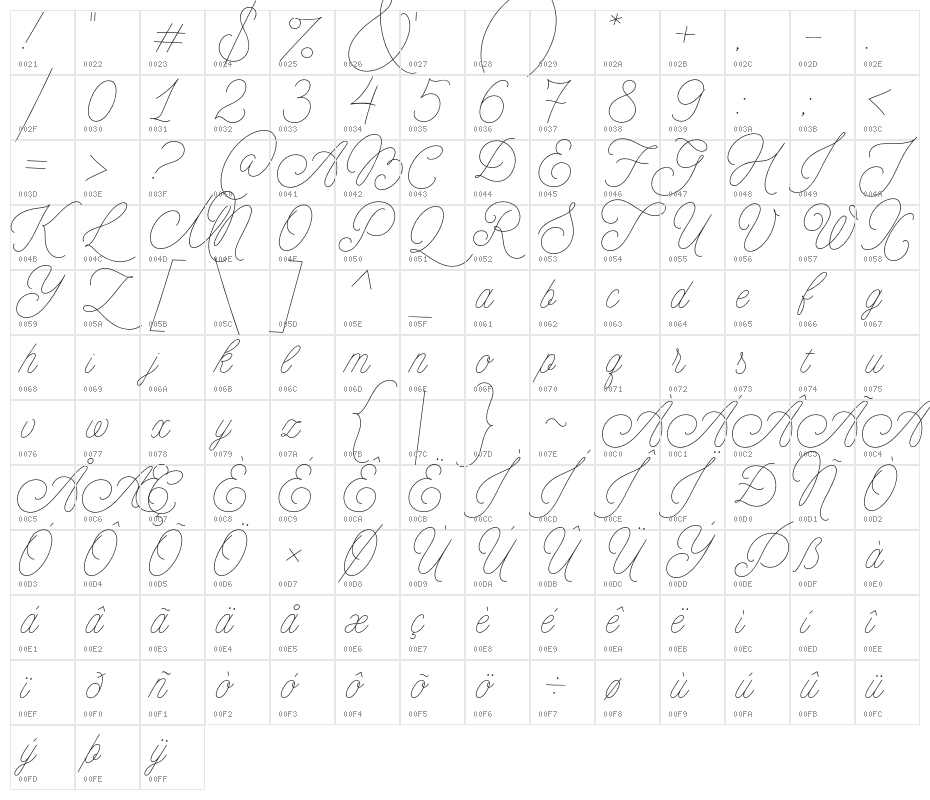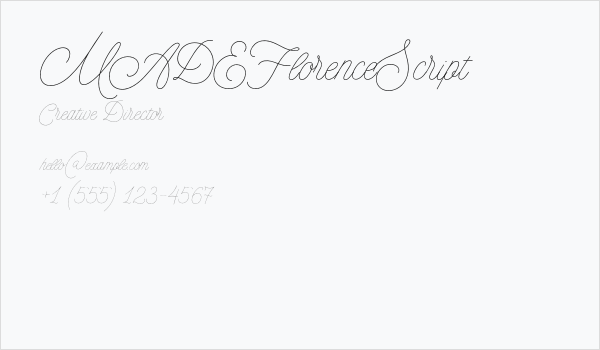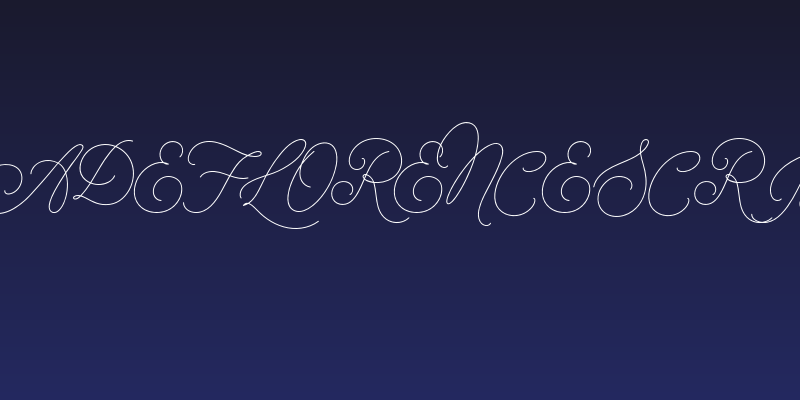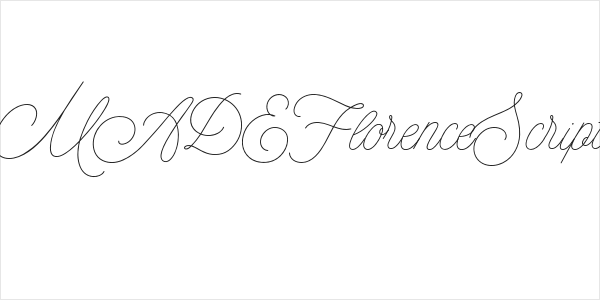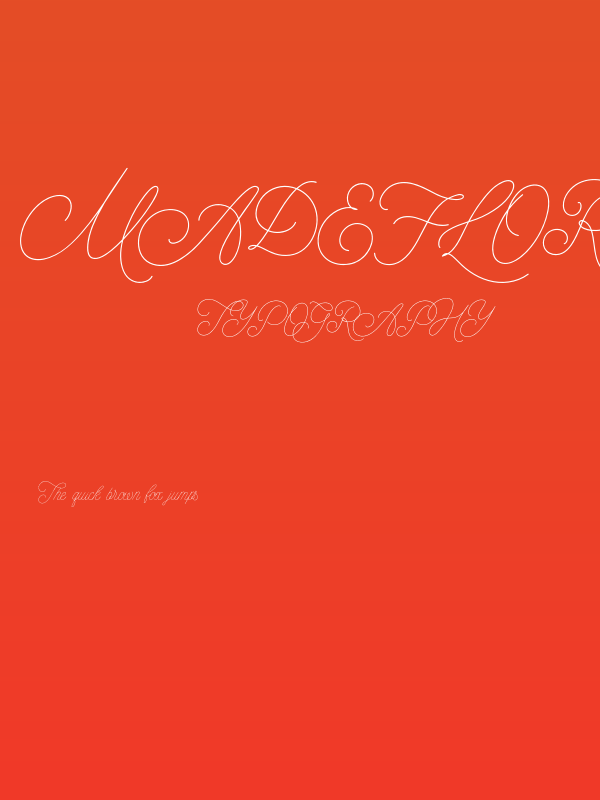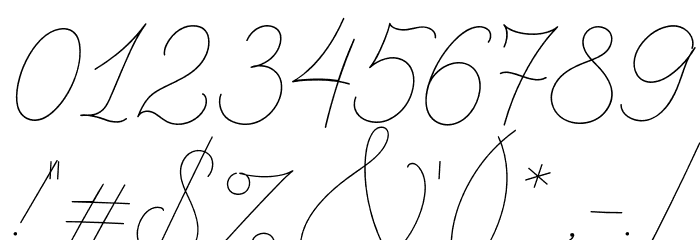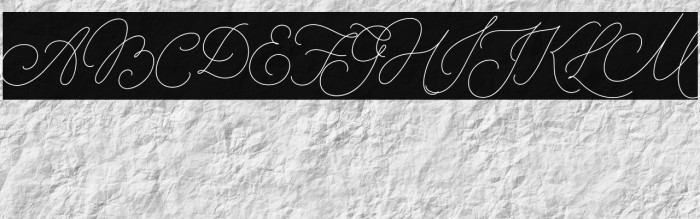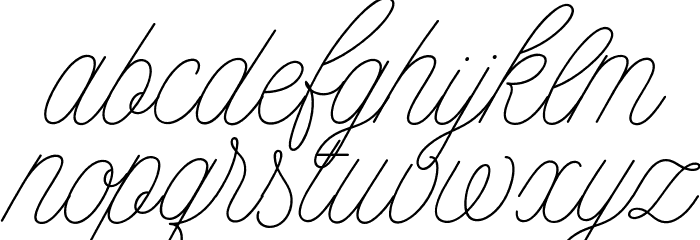
MADEFlorenceScript Font
MADEFlorenceScript Description
This elegant script font features a flowing, cursive style with delicate, interconnected letters. The uppercase characters are ornate and sweeping, while the lowercase letters maintain a smooth, consistent flow. The numerals are gracefully curved, complementing the overall aesthetic. Special characters are designed with the same attention to detail, enhancing the font's cohesive look. The thin strokes and high contrast give it a refined, sophisticated appearance, making it ideal for formal invitations, branding, and decorative purposes.
| Use Case | Invitations, Branding, Decorative |
| Proposed Projects | Ideal for wedding invitations, luxury branding, elegant signage, and decorative projects. |